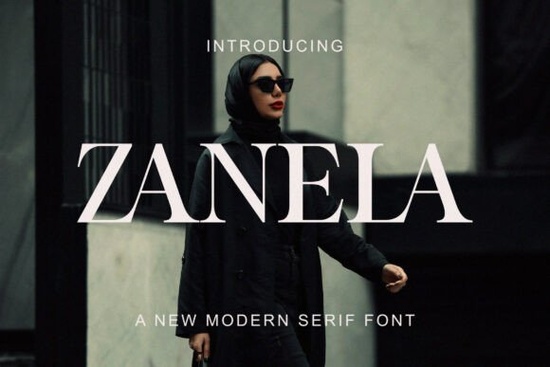
If you're working on a project that calls for elegance with an edge think luxury branding, fashion editorials, or premium packaging you’ve probably felt the need for a font that doesn’t just look good but feels authoritative. That’s where Zanela Font comes in. Designed with sharp serifs and a commanding presence, Zanela blends modern geometry with classic serif structure to deliver a typeface that’s both refined and unforgettable.
What makes Zanela stand out isn’t just its bold contrast or needle-fine serifs it’s how those details work together to create visual confidence. The tall x-height keeps readability strong even at smaller sizes, while the upright posture gives every word a sense of stability and poise. Whether you’re designing a minimalist logo or laying out a high-end magazine spread, Zanela brings a level of sophistication that feels intentional, not overdone.
When should you use Zanela Font?
Zanela shines in contexts where tone matters as much as typography. It’s especially well-suited for:
- Couture or beauty brand identities – Its polished aesthetic complements product lines that emphasize craftsmanship and exclusivity.
- Editorial headlines – Fashion magazines, lifestyle blogs, or luxury travel features benefit from its editorial gravitas.
- Packaging design – Cosmetic boxes, perfume labels, or boutique product tags gain instant prestige with Zanela’s clean yet dramatic letterforms.
- Minimalist logos – Because it carries so much character on its own, Zanela often needs little else to make a statement.
If your current go-to serif feels too traditional or your sans-serif too neutral, exploring options like Zanela can add just the right amount of curated flair without tipping into extravagance.
How does Zanela compare to other modern serifs?
Not all modern serifs are created equal. Some lean playful; others prioritize neutrality. Zanela sits firmly in the “luxury-first” camp its geometric apertures and crisp terminals give it a tailored quality that’s closer to bespoke tailoring than off-the-rack styling.
For contrast, consider something like Matchlips, which offers softer curves and a more approachable vibe. While Matchlips works beautifully for romantic or feminine brands, Zanela is your choice when you want to project strength, precision, and timeless elegance. Both have their place but knowing the difference helps you match type to message more effectively.
Is Zanela practical for everyday use?
Despite its high-fashion appeal, Zanela is surprisingly versatile. Its clear forms and generous spacing mean it holds up well in both digital and print formats. That said, it’s best reserved for display purposes headlines, titles, short phrases rather than body text. Using it sparingly ensures its impact isn’t diluted.
For crafters and print-on-demand sellers, this means Zanela works wonderfully on mugs, tote bags, or wall art featuring short quotes or brand names. Small business owners can use it to elevate business cards, signage, or social media graphics without needing a full rebrand.
Tips for pairing Zanela with other fonts
Because Zanela already carries strong personality, pair it with understated companions:
- Neutral sans-serifs like Helvetica Neue, Inter, or Montserrat keep the focus on Zanela while ensuring readability in supporting text.
- Avoid other high-contrast serifs they’ll compete rather than complement.
- Less is more: Stick to one or two typefaces total in any given layout.
Test your pairings at various sizes and weights. Sometimes a light or regular sans-serif balances Zanela’s boldness better than you’d expect.
Before you finalize your design, remember: great typography isn’t about using the fanciest font it’s about choosing the right one for your audience and intent. Zanela excels when you need to signal quality, confidence, and attention to detail.
If your project demands a font that whispers luxury but speaks with clarity, Zanela is worth a serious look.